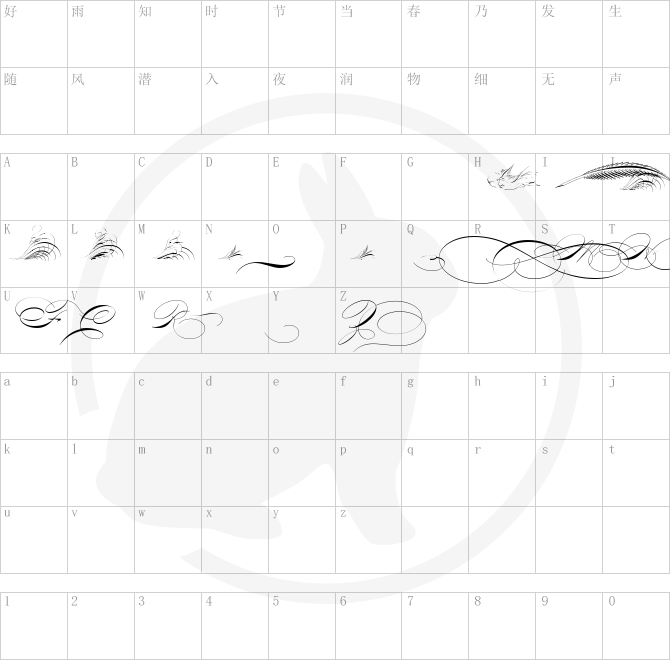
- Font Name:Zaner Ornamental
Zaner-Ornamental.ttf is a very beautiful artistic font, Zaner-Ornamental.ttf is widely used in the design and printing of various books and pictures,Zaner-Ornamental.ttf has a strong visual impact,Zaner-Ornamental.ttf is a commonly used font in newspapers, magazines and books, and is used in posters, e-commerce Poster design, store design, logo design, font design and other fields.Zaner-Ornamental.